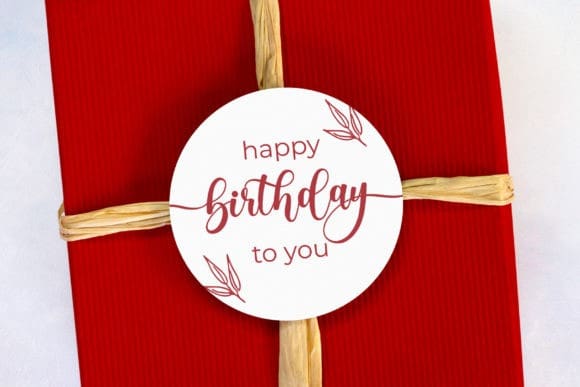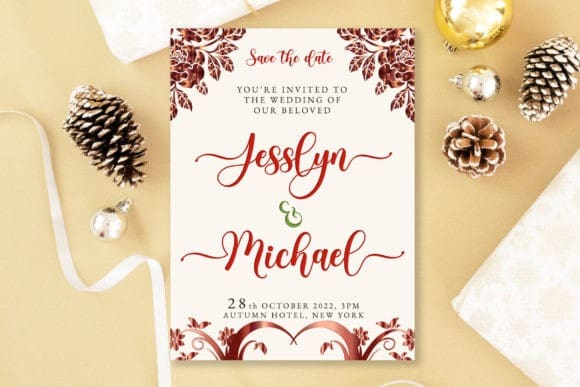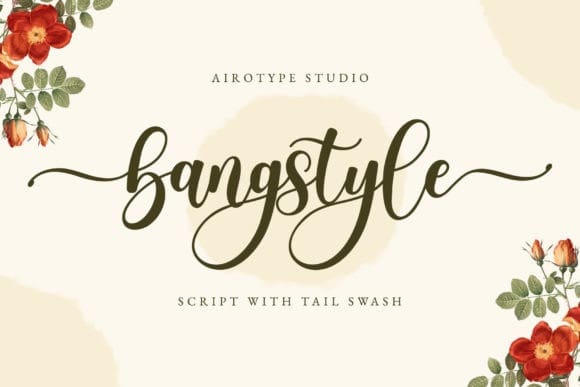
Bangstyle Font
Bangstyle Font is a joyful and bouncy calligraphy font. It is PUA encoded which means you can access all of the glyphs and swashes with ease!
Bangstyle is perfect for any elegant projects, such as wedding invitation, branding, logo,, label, crafting, and more.